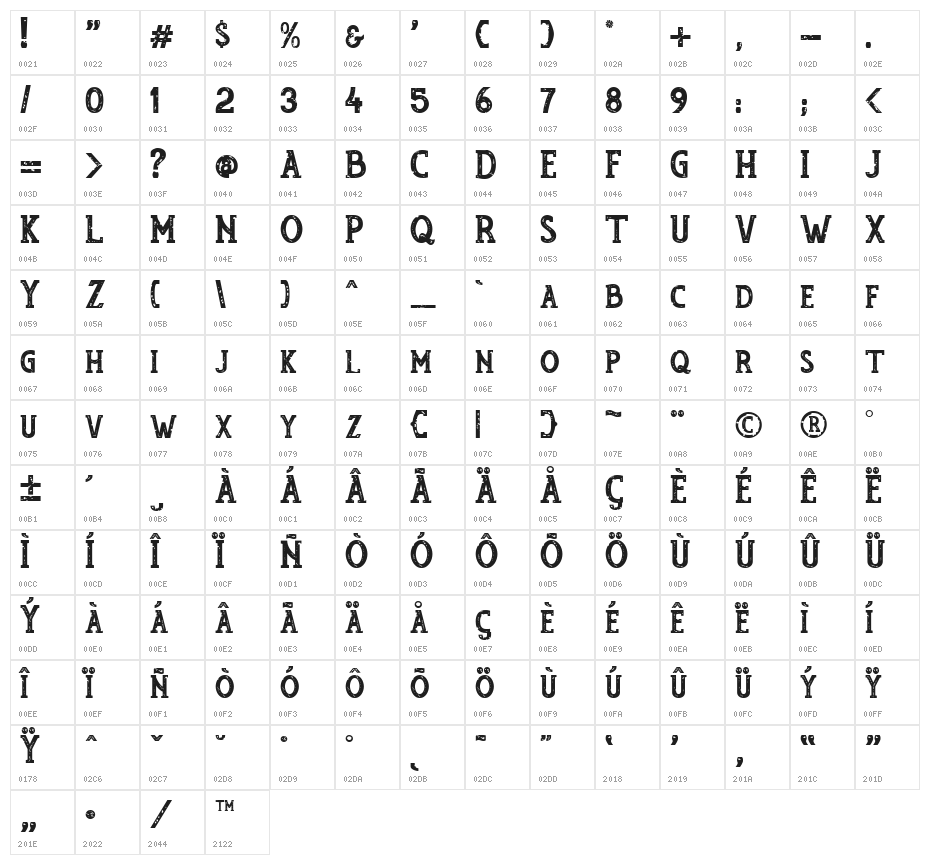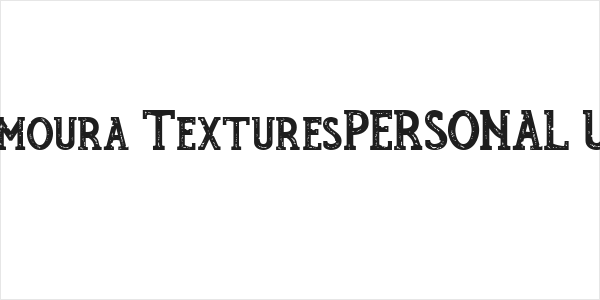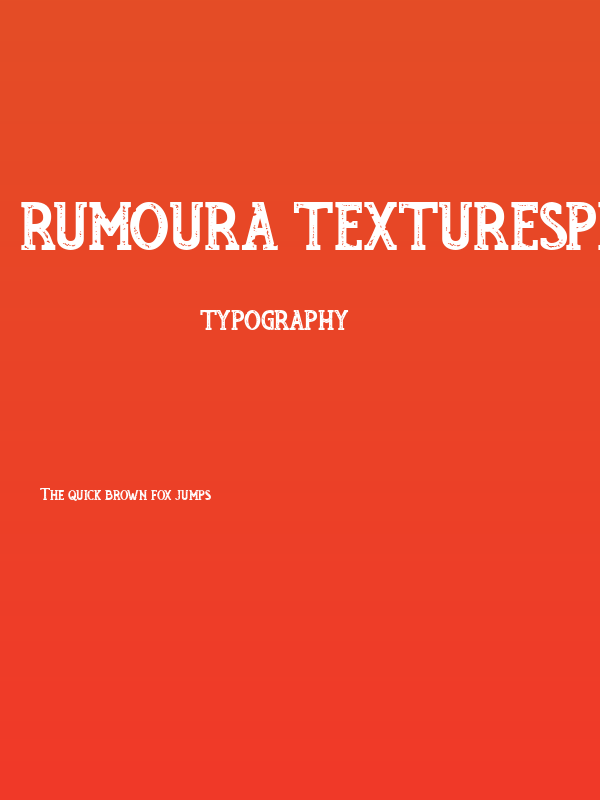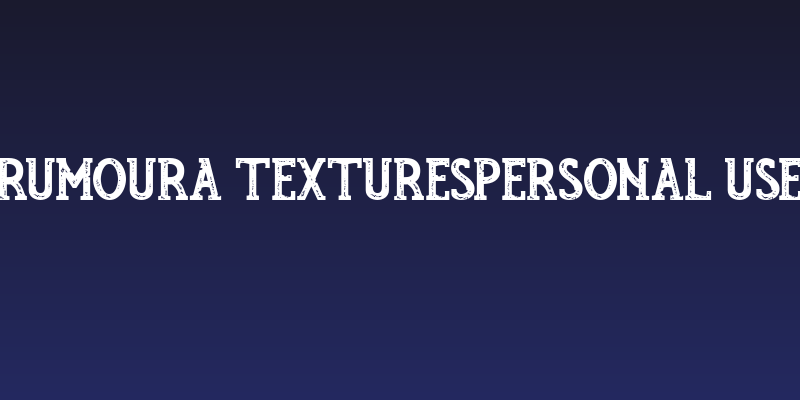
Rumoura TexturesPERSONAL USE Font
Rumoura TexturesPERSONAL USE Description
This font features a bold, textured design that gives it a rugged, distressed appearance. The characters are uniformly bold with a consistent texture that mimics a worn or weathered look, adding a vintage or industrial feel. The uppercase and lowercase letters maintain a strong presence, making them suitable for impactful designs. The numbers and special characters follow the same textured style, ensuring a cohesive look across all elements. This font's unique texture makes it stand out, ideal for projects that require a bold statement or a touch of rustic charm.
| Proposed Projects | Ideal for posters, logos, branding, and any design needing a vintage or industrial touch. |